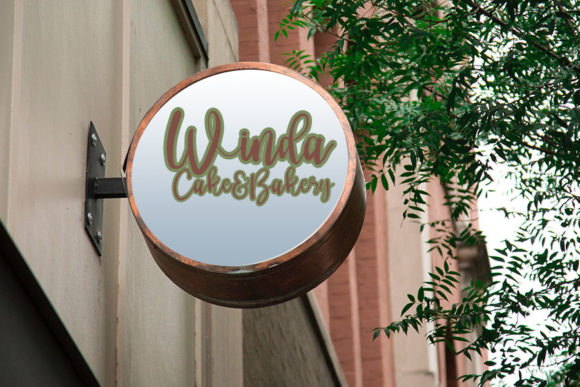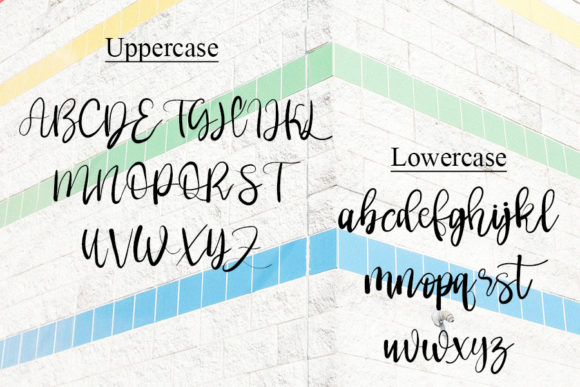
Sweetness Font
db-ku.com - Script & Handwritten -- Sweetness is a cursive and round lettered script font. Its distinct and delicate letters make this font a masterpiece. Fall in love with its incredibly versatile style and use it to create spectacular designs!